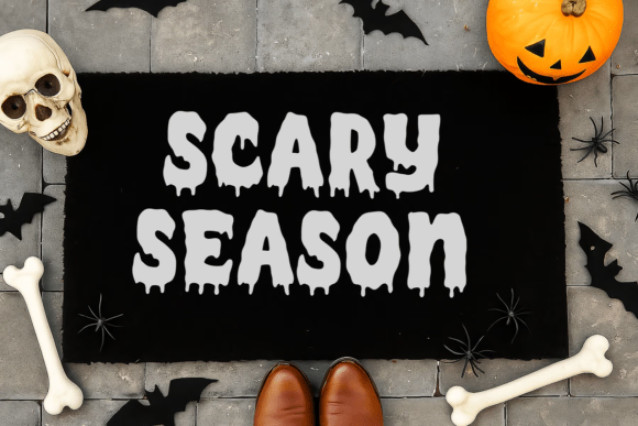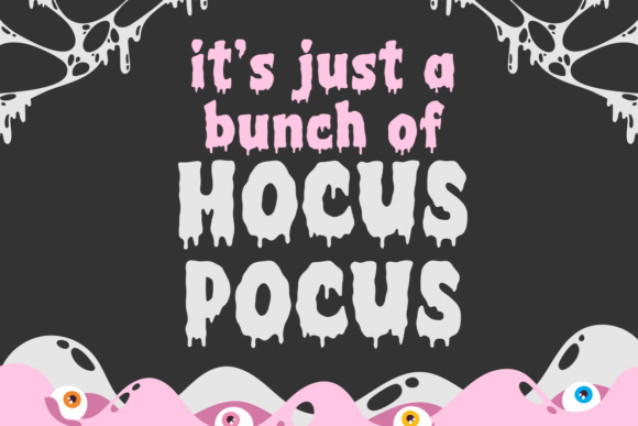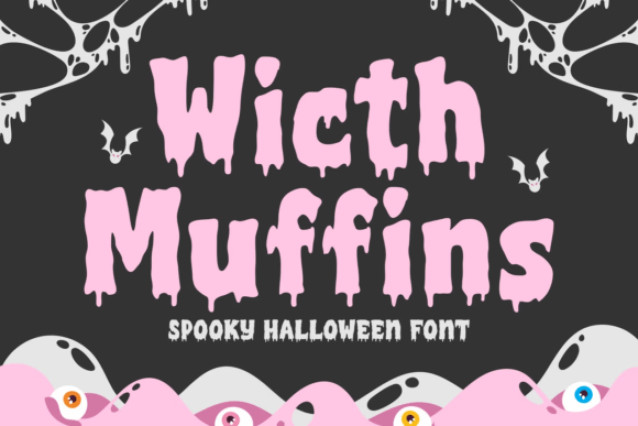
Witch Muffins is a playful yet spooky display font perfect for bringing a dash of Halloween magic to your designs. Featuring chunky, drippy letters with a soft, whimsical touch, this font blends creepy and cute in a way that’s ideal for party invitations, greeting cards, posters, stickers, and more.
Its bold, eye-catching style makes it perfect for any project that needs to stand out with a fun, eerie vibe—whether you’re creating for Halloween events, horror-themed branding, or quirky seasonal merchandise.